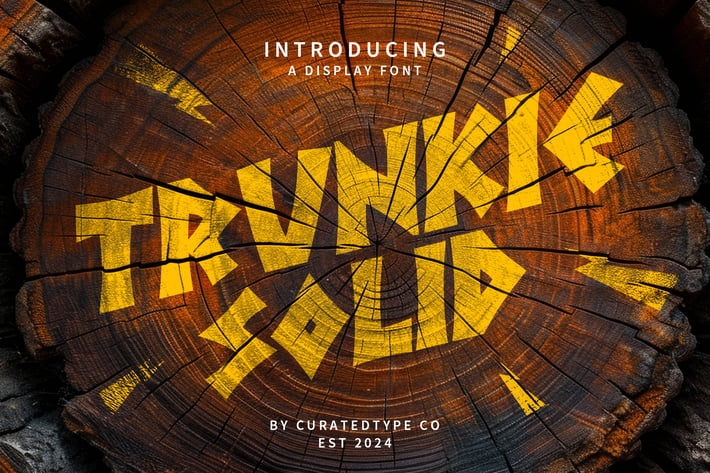
Trunkie Solid - Urban Display Font
Trunkie Solid is a font that radiates robustness and impact through its filled black characters. Each letter is crafted with sharp, geometric lines, creating a sense of power and stability. The solid design ensures excellent readability and visual prominence, making it an ideal choice for projects requiring strong, attention-grabbing text such as headlines, advertisements, and branding.
The assertive and contemporary style of Trunkie Solid lends an unmistakable edge to any creative work. Its unique character brings both strength and flair, ensuring that your message not only stands out but also resonates with boldness. Perfect for designs that seek to make a memorable impression, Trunkie Solid is a font that commands attention and adds a dynamic touch to your visual storytelling.